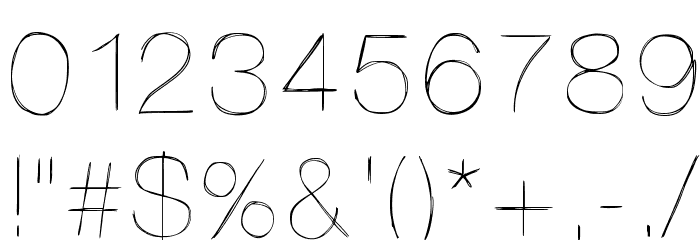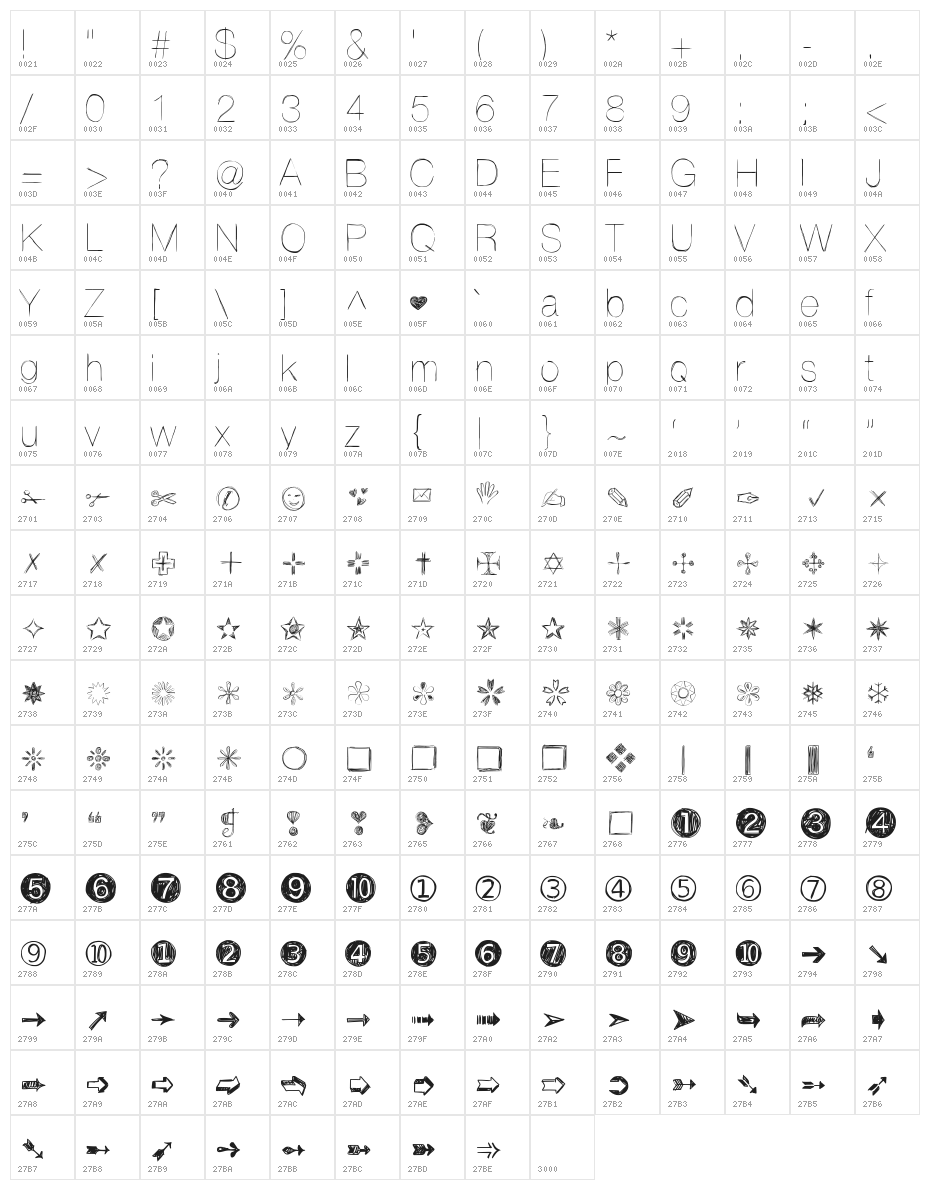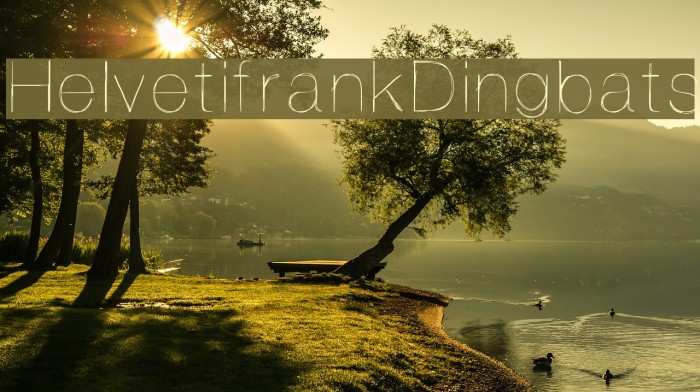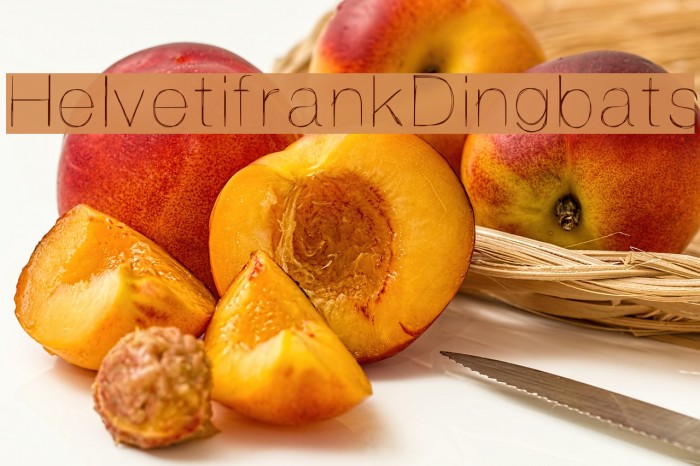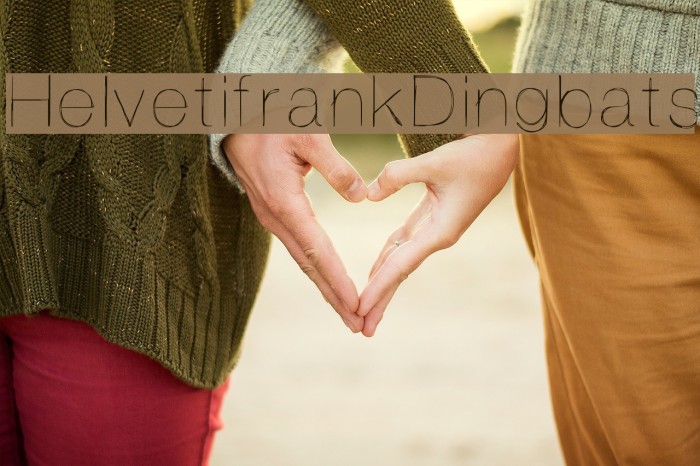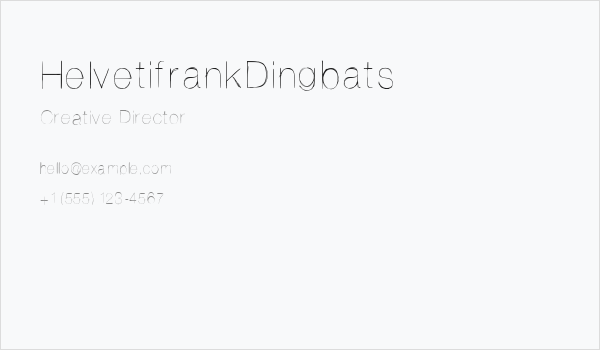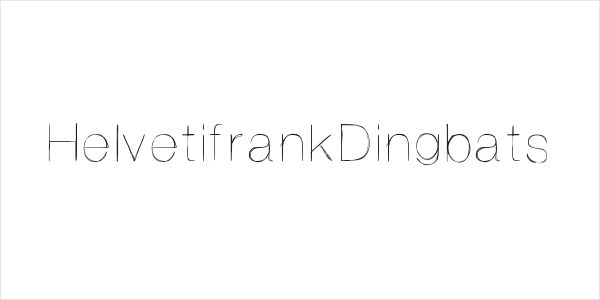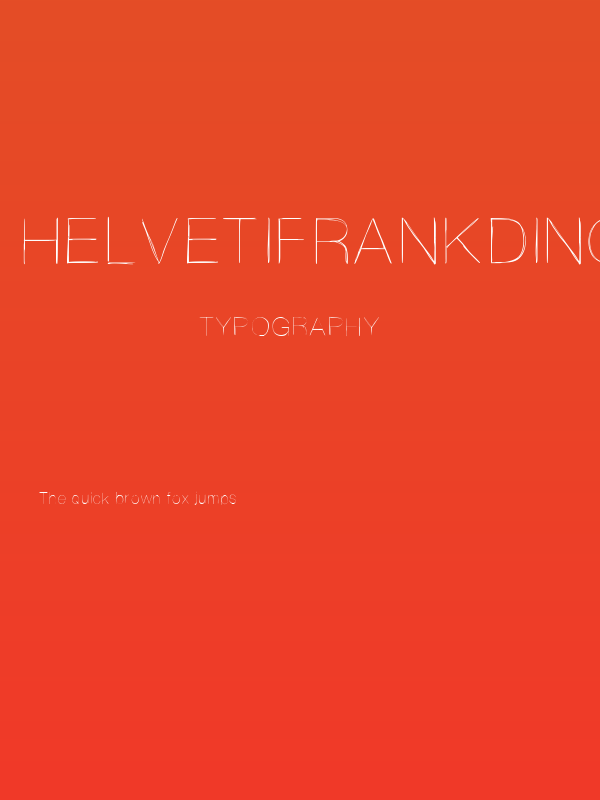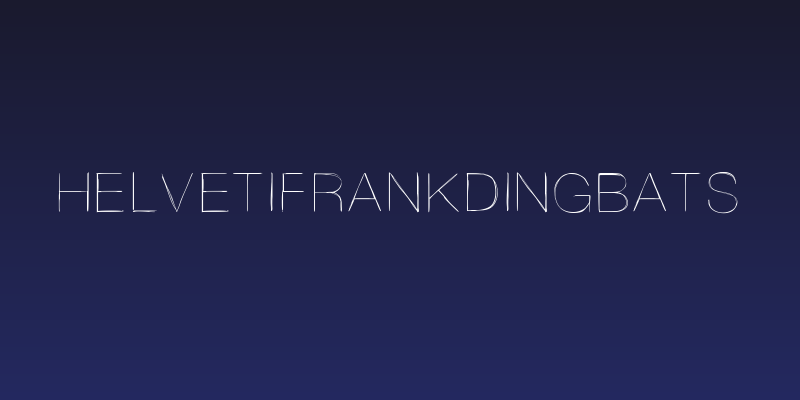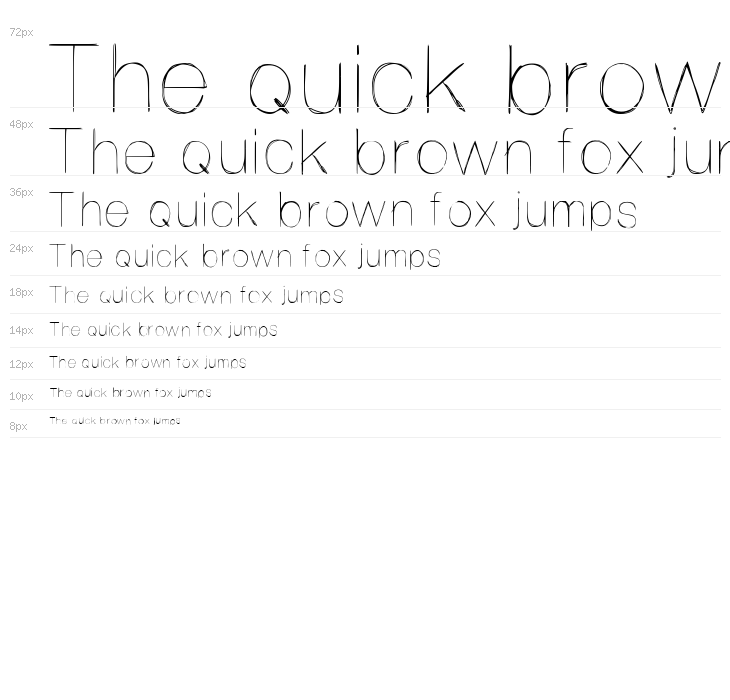
HelvetifrankDingbats Font
HelvetifrankDingbats Description
This font features a unique, hand-drawn aesthetic with thin, uneven strokes that give it a sketch-like appearance. The characters are formed with a casual, artistic flair, making each letter appear as if it has been carefully illustrated by hand. The uppercase and lowercase letters maintain a consistent style, with a playful yet sophisticated look. The numerals and special characters follow the same design principles, ensuring a cohesive overall appearance. This font's distinctive style is perfect for projects that require a personal touch or a creative edge.
| Overall Style | Artistic, Creative |
| Proposed Projects | Ideal for artistic projects, personal branding, creative invitations, or any design that benefits from a hand-crafted look. |